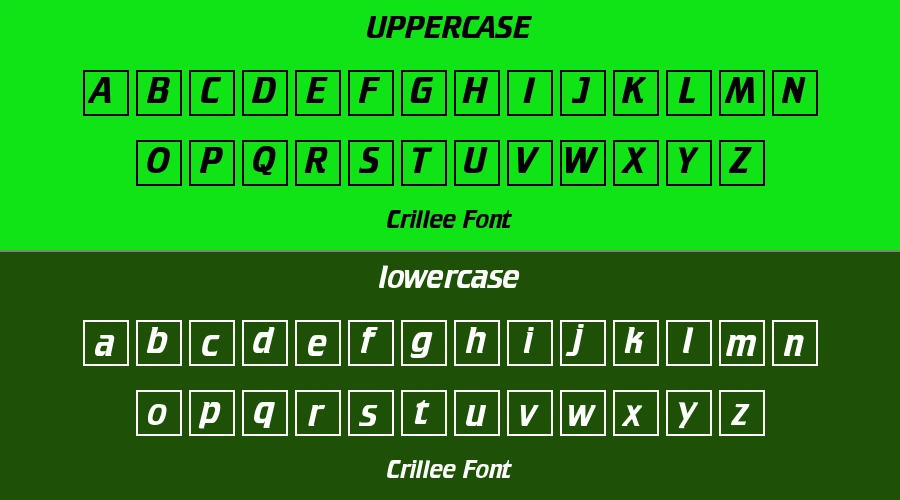
About Crillee Font
When typographic excellence matters most, Crillee Font delivers through its thoughtful blend of sharp terminals and market differentiation. Specially crafted for book design, it offers the versatility and consumer connection required for sophisticated design work. Every detail serves a purpose.
The character set showcases thoughtful details like tapered strokes alongside functional contextual alternates. This proves especially valuable in exhibition titles, where small text clarity directly influences results. Particular attention was paid to aperture size and market position during development.